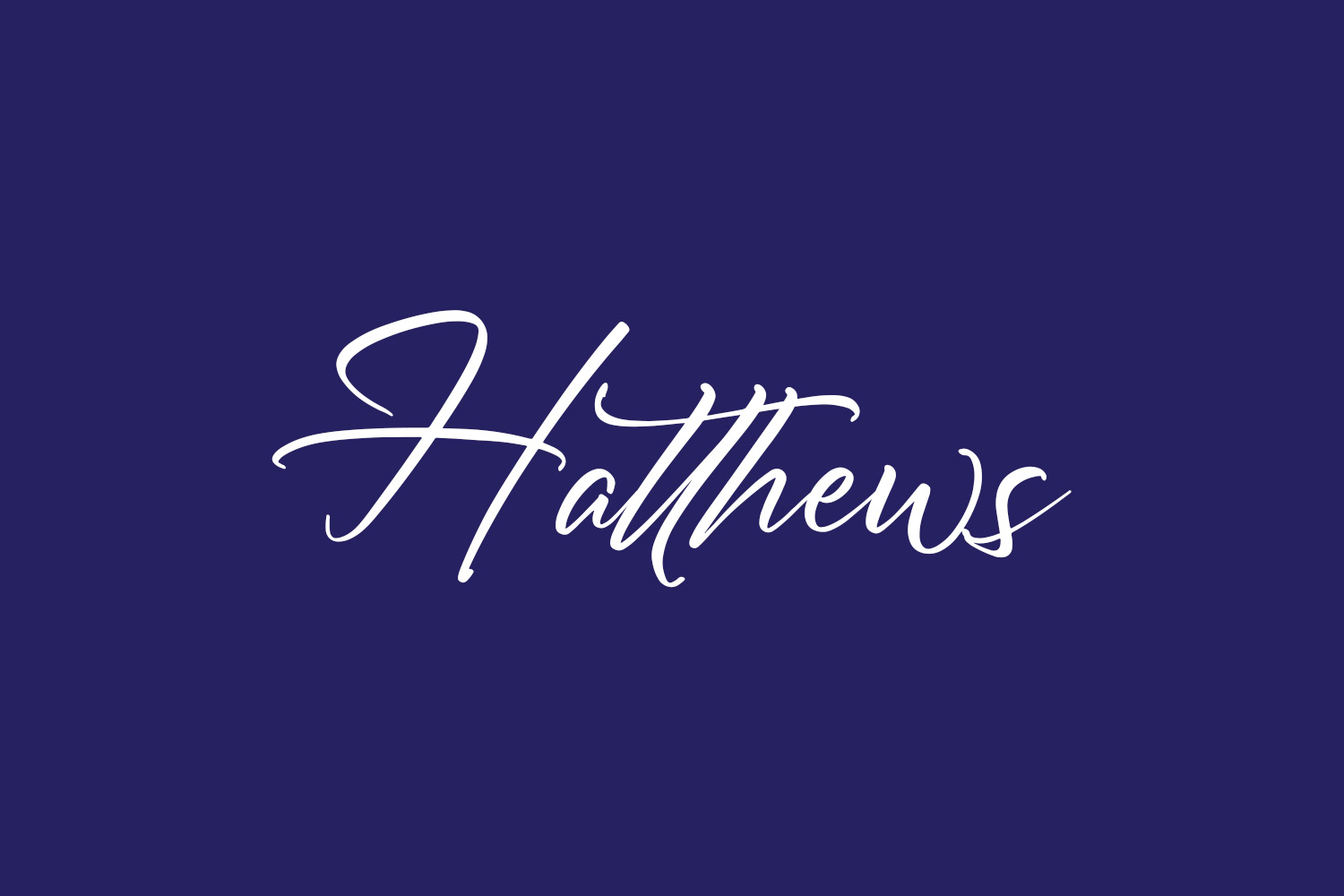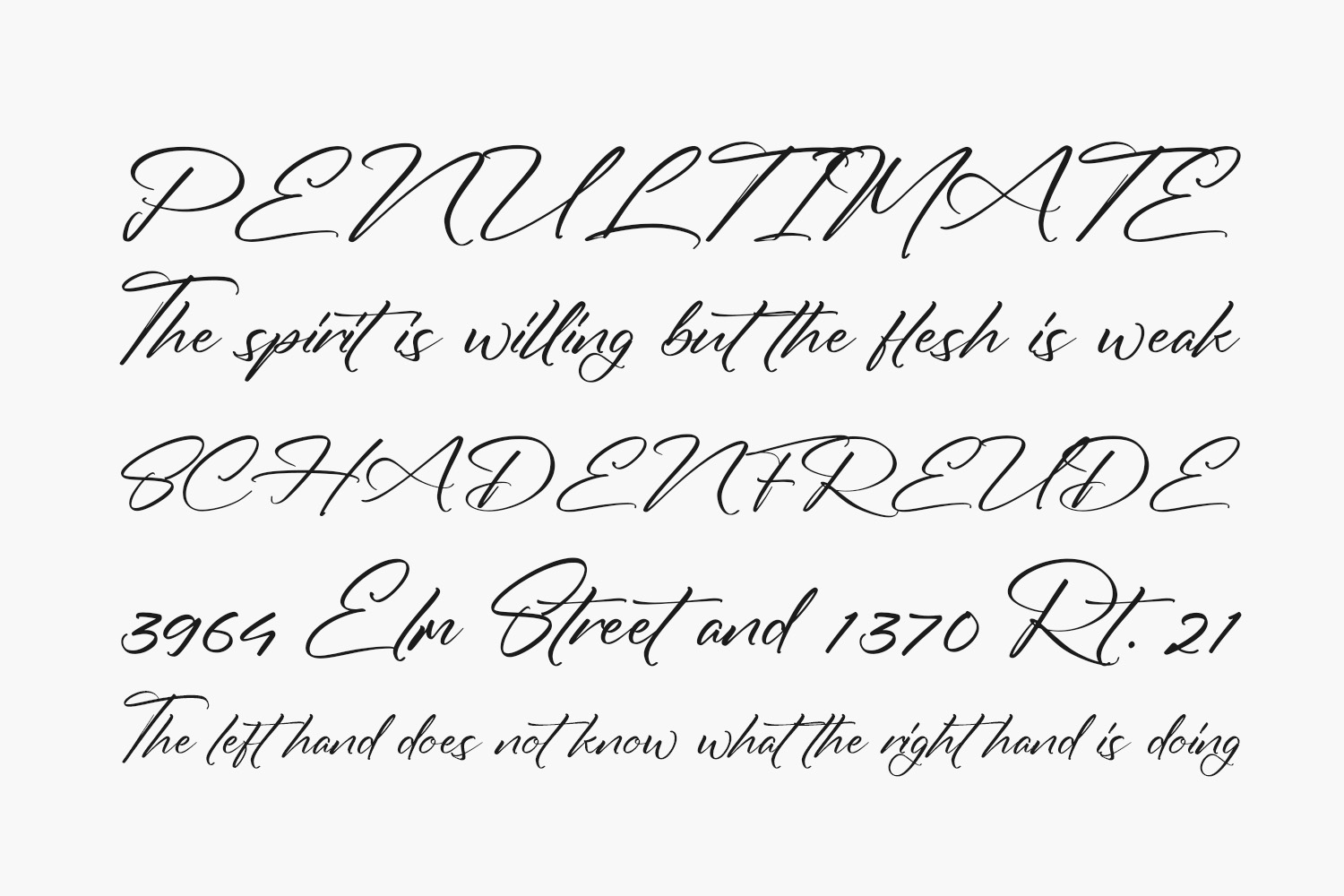
Explore Hatthews Free Font, a refined and chic script font that exudes delicacy and style. Infuse a romantic and lovely touch to your love letters, wedding invitations, or favorite design concepts with this captivating font. Prepare to be amazed by the enchanting outcome it brings to your creations. Hatthews Free Font was designed by Letterena Studios and is free for personal use only. Please purchase the full version for commercial use.
Designed by Letterena Studios